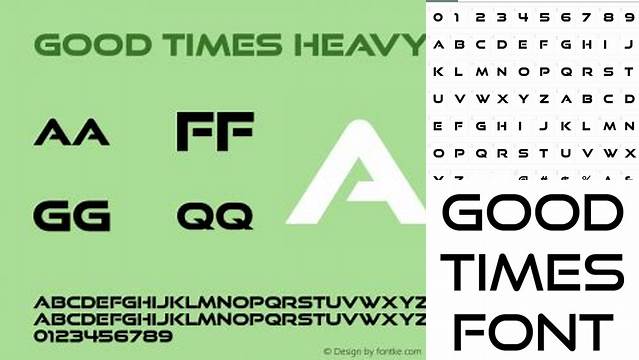
Hey guys! Are you looking for a font that's bold, impactful, and gives off that retro vibe? Then you've probably heard of the Good Times Heavy font. This font family is super popular for its strong character and versatility, making it a go-to choice for designers and creatives alike. In this article, we're going to dive deep into everything you need to know about Good Times Heavy font, from where to download it for free to how to use it effectively in your projects. We'll cover a bunch of related topics too, so buckle up and let's get started!
1. What is the Good Times Heavy Font?
So, what exactly is the Good Times Heavy font? Well, imagine a font that screams boldness and retro charm. That's Good Times Heavy in a nutshell. It's a typeface that's characterized by its thick, heavy strokes and a slightly vintage feel. This makes it perfect for headlines, posters, logos, and anything else where you want to make a strong statement. The distinctive style of Good Times Heavy helps your message stand out and grab attention. It’s not just a font; it’s a design element that adds personality and character to your work. Think 70s disco posters, classic video game titles, and bold advertising campaigns – that's the kind of vibe we're talking about. The font's strong, sturdy letterforms ensure readability, even at a distance, making it a practical choice for various design needs. Plus, its unique aesthetic sets it apart from more generic fonts, giving your projects a unique and memorable touch. Whether you're working on a branding project, a website design, or even social media graphics, Good Times Heavy can be a powerful tool in your arsenal. So, if you're looking to inject some retro flair and boldness into your designs, this font might just be the perfect fit.
4. Good Times Heavy Font Alternatives
Okay, so maybe Good Times Heavy font isn't exactly what you're looking for, or perhaps you need some variations for a project. No worries! There are tons of other awesome fonts out there that offer a similar vibe. Exploring alternatives is a great way to find the perfect fit for your design needs and to ensure you have a diverse font library to draw from. One popular alternative is fonts with a bold, retro style. Think of fonts that evoke the same 70s or 80s feel, with thick strokes and a playful character. These fonts often share the same visual impact as Good Times Heavy, making them suitable for similar applications like headlines, posters, and logos. Another option is to look for fonts within the same font family, if available. Sometimes, a font family will include different weights and styles, giving you a range of options that maintain a consistent look and feel. This can be especially useful if you need to use the same font across different elements of your design but want to vary the emphasis or visual interest. Additionally, consider fonts that are described as display fonts. These fonts are specifically designed for use in headlines and other prominent design elements, and they often have unique characteristics that make them stand out. Websites that offer font downloads often have filtering and search options that allow you to browse fonts by style, weight, and other characteristics. So, take some time to explore the alternatives and see what catches your eye. You might just discover your new favorite font!
5. Using Good Times Heavy in Graphic Design
Let's dive into how you can actually use Good Times Heavy font in your graphic design projects. This font isn't just a pretty face; it's a powerhouse when used effectively. Its bold and impactful nature makes it particularly well-suited for certain design applications. One of the best uses for Good Times Heavy is in headlines and titles. The font's strong presence instantly grabs the viewer's attention, making it perfect for drawing people into your content. Whether you're designing a poster, a website header, or a social media graphic, using Good Times Heavy for your headlines can add a punchy and memorable element. Another great application is in logos and branding materials. A distinctive font like Good Times Heavy can help your brand stand out from the competition and create a strong visual identity. Its retro vibe can also be particularly effective for brands that want to evoke a sense of nostalgia or vintage charm. When using Good Times Heavy, it's important to consider the overall design aesthetic. Because the font is so bold, it's often best paired with simpler, more understated fonts for body text. This creates a visual hierarchy and ensures that your design doesn't feel too overwhelming. You'll also want to think about the color palette and imagery you're using. Good Times Heavy often works well with vibrant colors and bold graphics, but it can also be effective in more minimalist designs when used strategically. Experiment with different layouts and combinations to find the perfect balance for your project.
6. Pairing Good Times Heavy with Other Fonts
One of the keys to using Good Times Heavy font effectively is knowing how to pair it with other fonts. Because Good Times Heavy is so bold and attention-grabbing, it's crucial to choose complementary fonts that balance its strong personality. Think of it like this: Good Times Heavy is the lead singer, and the other fonts are the supporting band members – they need to harmonize and not compete for the spotlight. A classic approach is to pair Good Times Heavy with a clean, simple sans-serif font for body text. Fonts like Helvetica, Arial, or Open Sans provide a nice contrast to the boldness of Good Times Heavy, ensuring that your content is easy to read. The clean lines and minimalist design of these fonts allow Good Times Heavy to shine in headlines and titles without overwhelming the overall design. Another option is to use a slightly more decorative but still legible serif font for body text. Fonts like Times New Roman or Georgia can add a touch of elegance and sophistication while still providing a clear contrast to Good Times Heavy. When choosing a pairing font, consider the overall tone and style of your design. If you're aiming for a retro vibe, you might choose a sans-serif font with a slightly vintage feel. If you're going for a more modern look, a clean and contemporary sans-serif font would be a better choice. Experiment with different font pairings to see what works best for your project. Don't be afraid to mix and match styles, but always make sure the fonts you choose complement each other and enhance the overall visual appeal of your design. Ultimately, the right font pairing can elevate your design and create a cohesive and impactful message.
7. Good Times Heavy Font in Logos
The Good Times Heavy font can be a fantastic choice for logos, especially if you're aiming for a bold, memorable, and slightly retro vibe. Logos are the face of a brand, and the font you choose plays a huge role in conveying the brand's personality and values. Good Times Heavy's strong, sturdy letterforms make it highly visible and impactful, which is crucial for logo design. A logo needs to be recognizable and legible at various sizes, from a small website favicon to a large billboard, and Good Times Heavy delivers on both fronts. Its distinctive style can help your brand stand out from the competition and create a lasting impression. When using Good Times Heavy in a logo, think about the overall message you want to convey. The font's retro feel can work well for brands that want to evoke nostalgia or a sense of classic appeal. It's also a great choice for brands that want to project strength, confidence, and a bit of edginess. Consider how the font will look in different contexts. Will it work well on business cards, websites, and social media profiles? Will it be legible in both color and black and white? It's often a good idea to create several variations of your logo to ensure it looks great in any situation. In some cases, you might choose to use Good Times Heavy for the entire logo, while in others, you might pair it with a simpler font for the brand's tagline or other text elements. The key is to create a balanced and visually appealing design that effectively communicates your brand's identity. With its bold character and distinctive style, Good Times Heavy can be a powerful asset in your logo design toolkit.
8. Websites Using Good Times Heavy
Have you ever stumbled upon a website and thought,